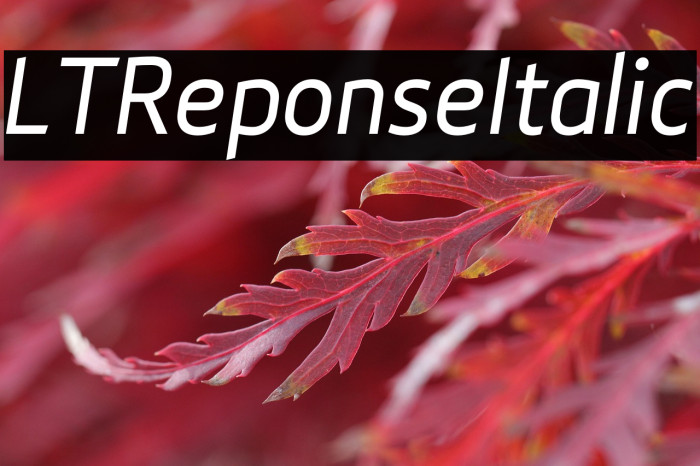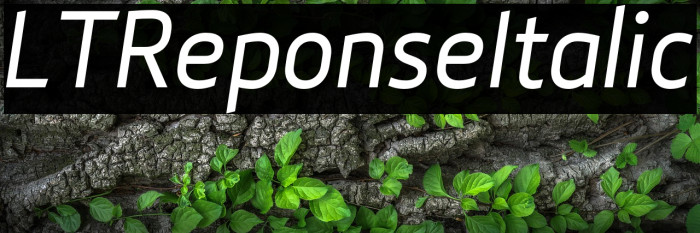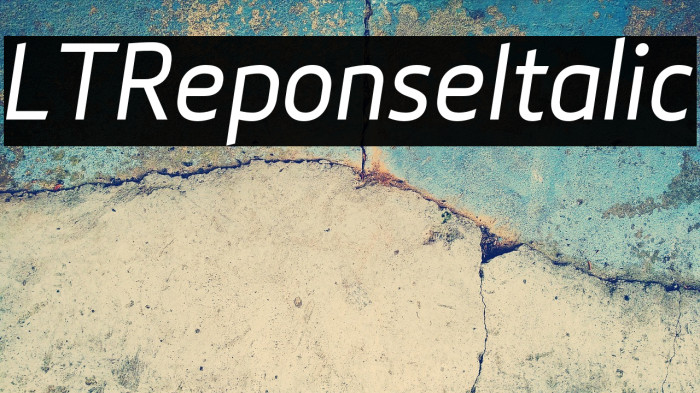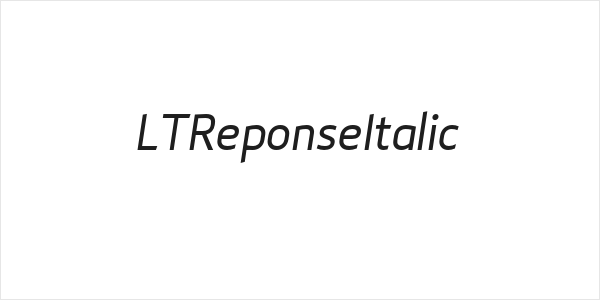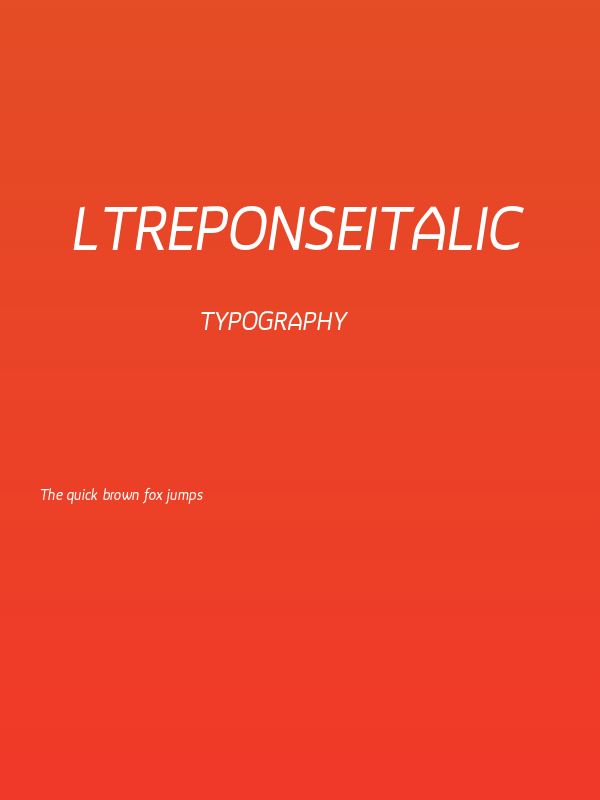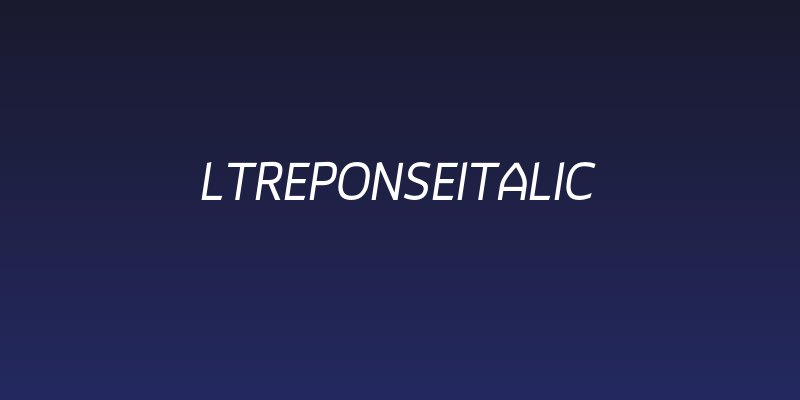
LTReponseItalic Font
LTReponseItalic Description
This font features a sleek and modern design with a subtle italic slant, giving it a dynamic and forward-moving appearance. The characters are clean and well-defined, with a consistent stroke width that maintains readability across different sizes. The uppercase letters are slightly taller than the lowercase, providing a balanced and harmonious look. The numerals are clear and distinct, making them suitable for various applications. Special characters are included, enhancing the font's versatility. The overall design is minimalistic yet stylish, making it ideal for contemporary projects.